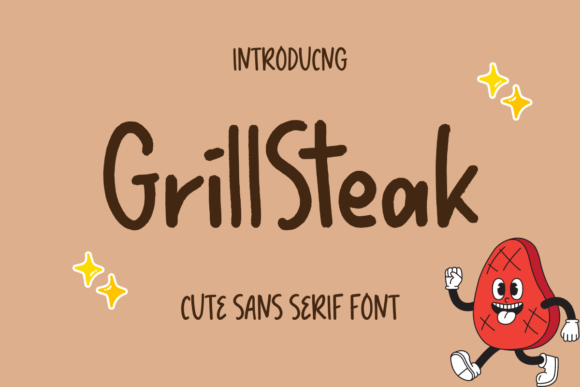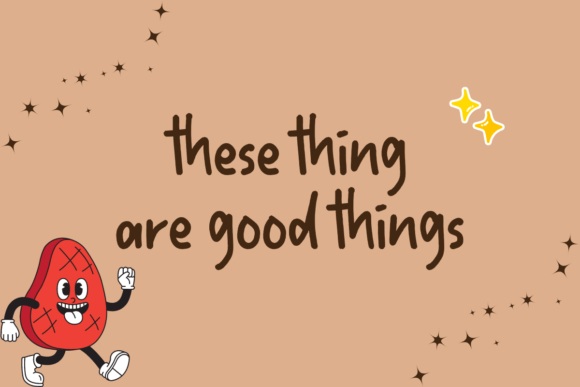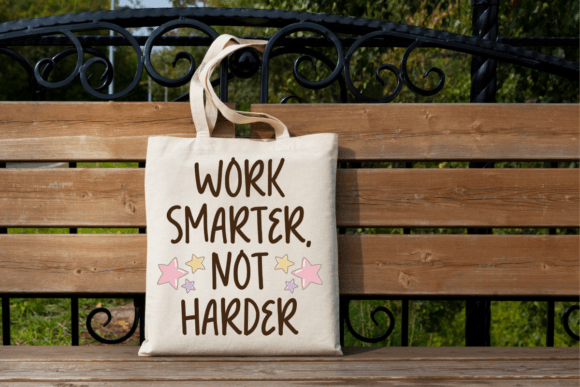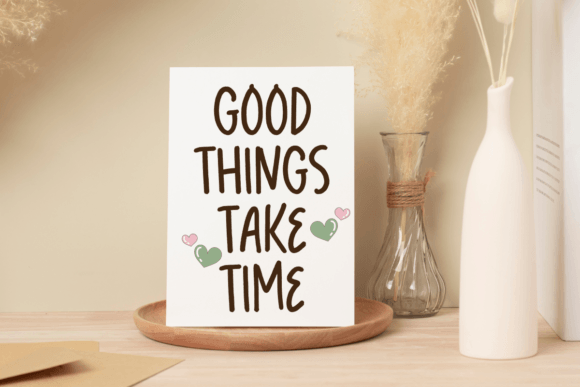
Grill Steak Font
About the Grill Steak Font
Explore the possibilities with Grill Steak Font, a font that offers both beauty and functionality. Grill Steak is a cute sans serif font. That is suitable for perfecting your creative projects such as stickers, notes, planners, SVG quotes, t-shirts, wall art, Cricut, craft, embroidery, posters, cards, and many other ideas.
Grill Steak’s playful, rounded forms make it ideal for projects requiring a friendly and approachable aesthetic. It excels in headlines, short text blocks on posters and packaging, and social media graphics. However, its informal nature makes it less suitable for body text or UI elements where readability over extended lengths is crucial.
Pairing Grill Steak with a clean sans-serif like Lato for body text offers a balanced contrast, maintaining a modern feel. For a more playful approach, consider pairing it with a script font like Pacifico for accents, though use sparingly to prevent visual overload. A geometric sans-serif like Montserrat could also provide a sophisticated counterpoint, suitable for branding projects needing both approachability and a touch of refinement.
The overall personality of Grill Steak is best described as cheerful and informal, making it a strong choice for brands targeting younger demographics or projects with a lighthearted and casual tone.
Grill Steak Font Usage Examples
Grill Steak Font Example